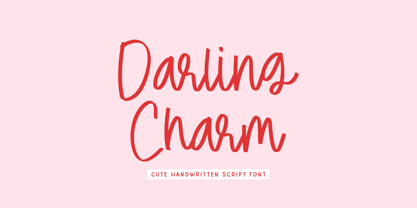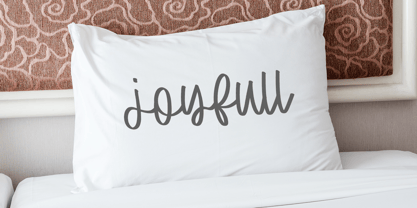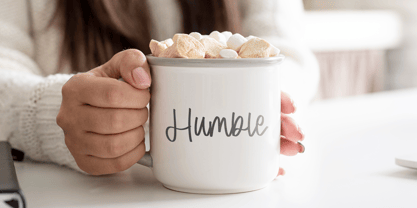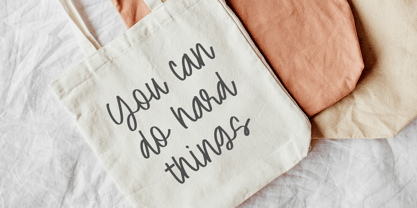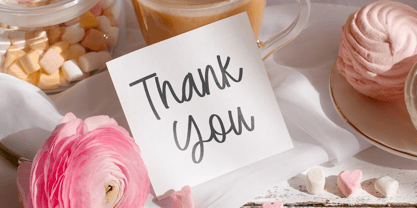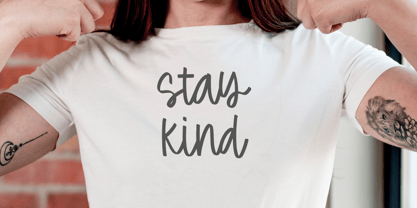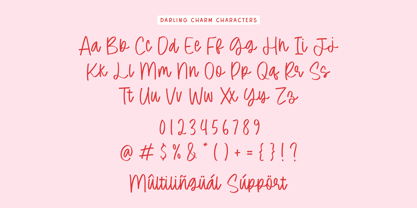
Darling Charm
A família de fontes Darling Charm foi desenhada por Ibnu Nur Rahman e publicada pela Timurtype. Darling Charm contém 1 estilos. Saiba mais sobre esta família
Darling Charm is a Cute Handwritten Script Font
This font is a cute handwritten script font with a sweet and playful. Its flowing strokes and natural letterforms create a warm, charming feel, making it perfect for invitations, branding, social media graphics, quotes, and creative projects that need a touch of elegance and friendliness.
Darling Charm Font also supports multilingualism